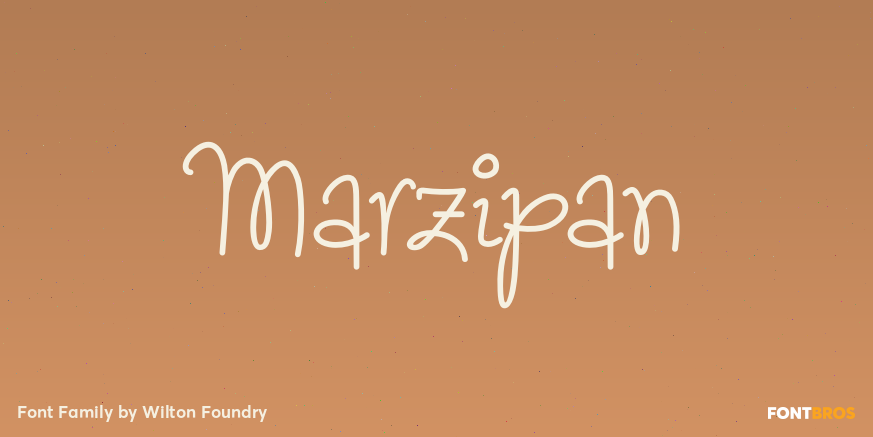
HomeFont BrosHandwrittenMarzipan HandwrittenWacky Marzipan FacebookXPinterestWhatsApp 1 of 1 About Marzipan The spontaneously fun font for all things whimsical! Outrageous and gregarious, Marzipan is great for a multitude of applications including brochures, identities, packaging and scrapbooking.  DOWNLOAD ON FONT BROSThis font is sold and delivered by Font Bros. Font Canyon may earn a commission if you buy through this link. People also explored Monstera Font Homsyatun Font Agosy Font Keltone Font Snow City Font Secred Font Gundam Font Advertisement Font Chatarina Font 371 0 TagsMarzipan Font Previous articleFilmotype NemoNext articleFondly Yourz LEAVE A REPLY Cancel reply Comment: Please enter your comment! Name:* Please enter your name here Email:* You have entered an incorrect email address! Please enter your email address here Website: Save my name, email, and website in this browser for the next time I comment. Personal Use Free Barokah Personal Use Free Read more about this font Eigha Personal Use Free Read more about this font Remember Personal Use Free Read more about this font Fontmageddon Personal Use Free Read more about this font BLOG 5 Fonts That Will Dominate Design Trends in 2026 5 Fonts for 2026 That Will Dominate Design Trends Typography plays a critical role in visual communication, and as we look ahead to 2026, it’s... The 10 Best Handwriting Fonts to Add Personality to Your Designs Top 7 Google Fonts Alternatives for Faster and Privacy-Friendly Web Design (2025) To increase your work productivity, choose the most readable fonts.